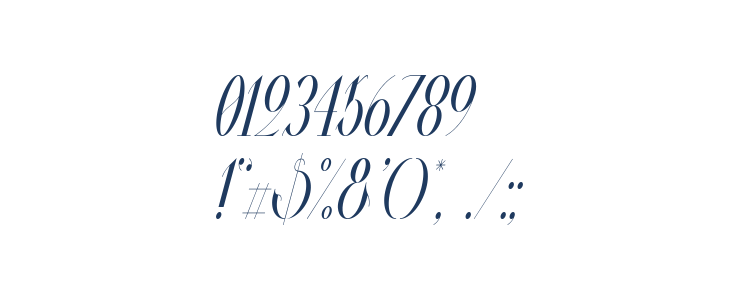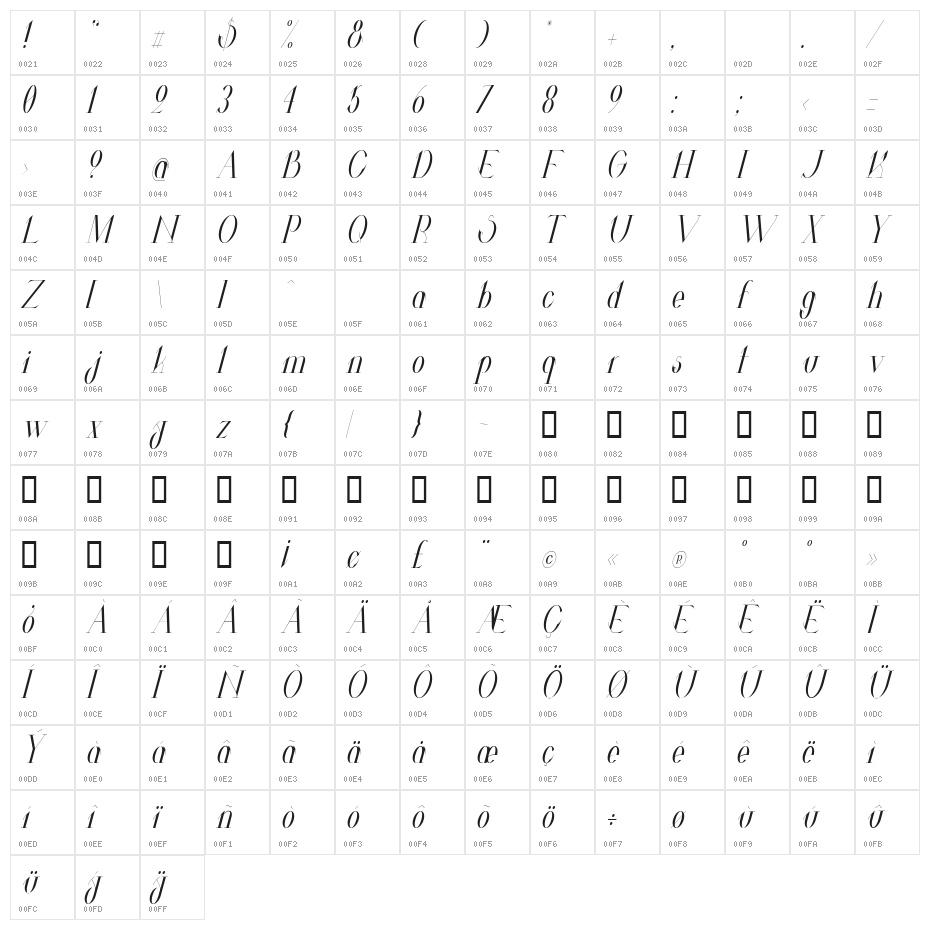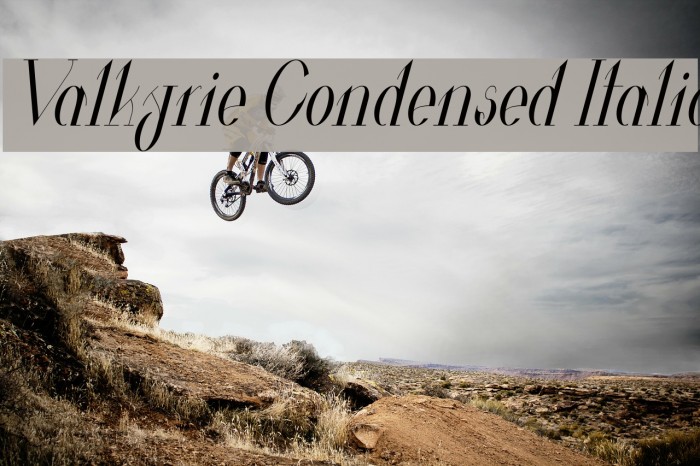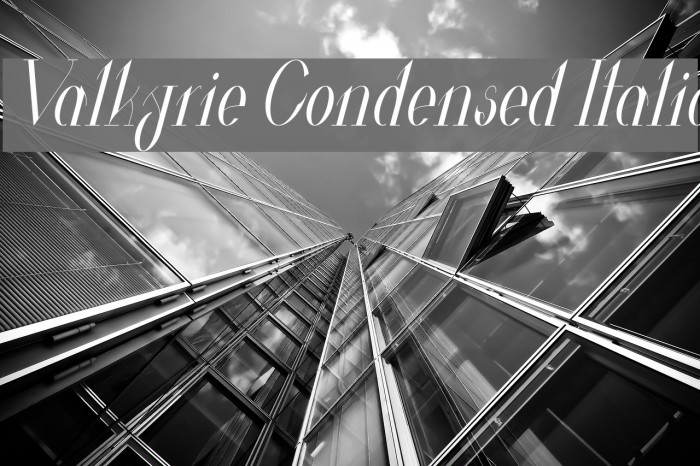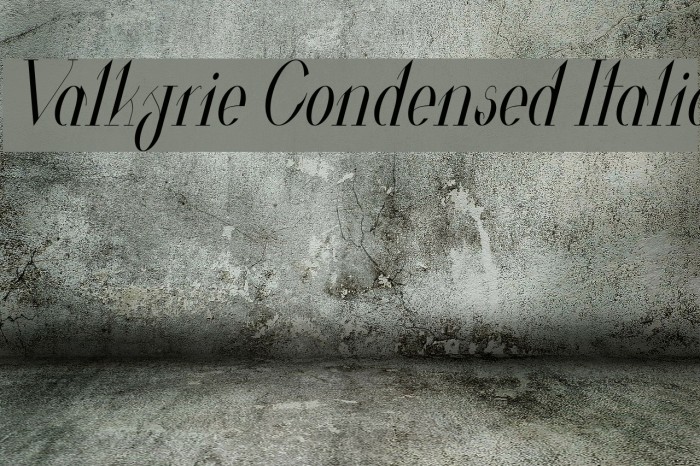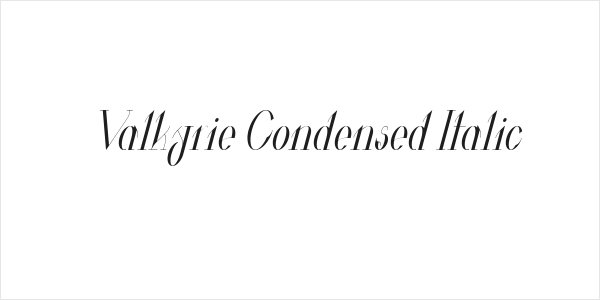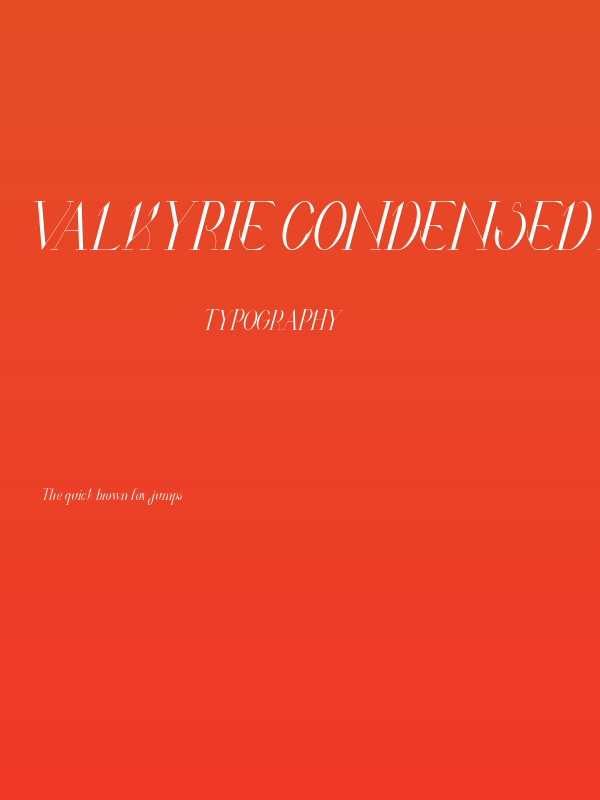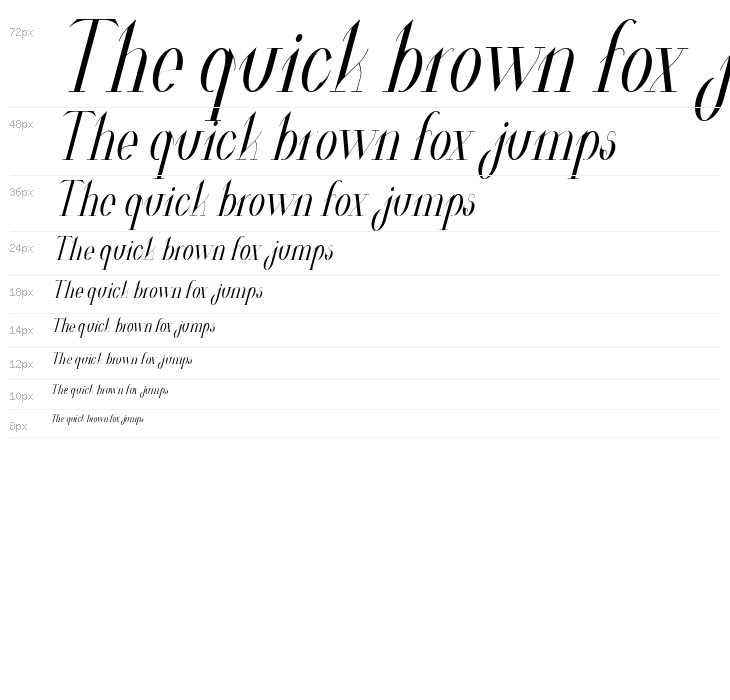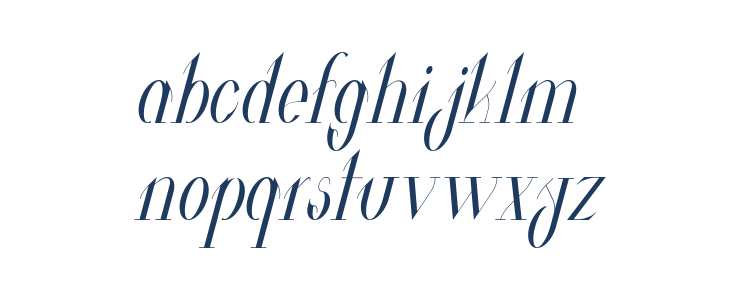
Valkyrie Condensed Italic Font
Valkyrie Condensed Italic Description
This font exhibits a sleek and elegant design with a condensed and italicized style. The characters are elongated and slightly slanted, giving it a dynamic and sophisticated appearance. The strokes are thin with a high contrast between thick and thin lines, adding to its refined aesthetic. The uppercase letters are tall and commanding, while the lowercase letters maintain a consistent flow. The numerals are distinct and align well with the overall style. Special characters are crafted with the same attention to detail, ensuring a cohesive look across all glyphs. This font is ideal for projects that require a touch of elegance and modernity.
| Overall Style | Modern, Elegant |
| Proposed Projects | Ideal for luxury branding, fashion magazines, elegant invitations, and high-end product packaging. |